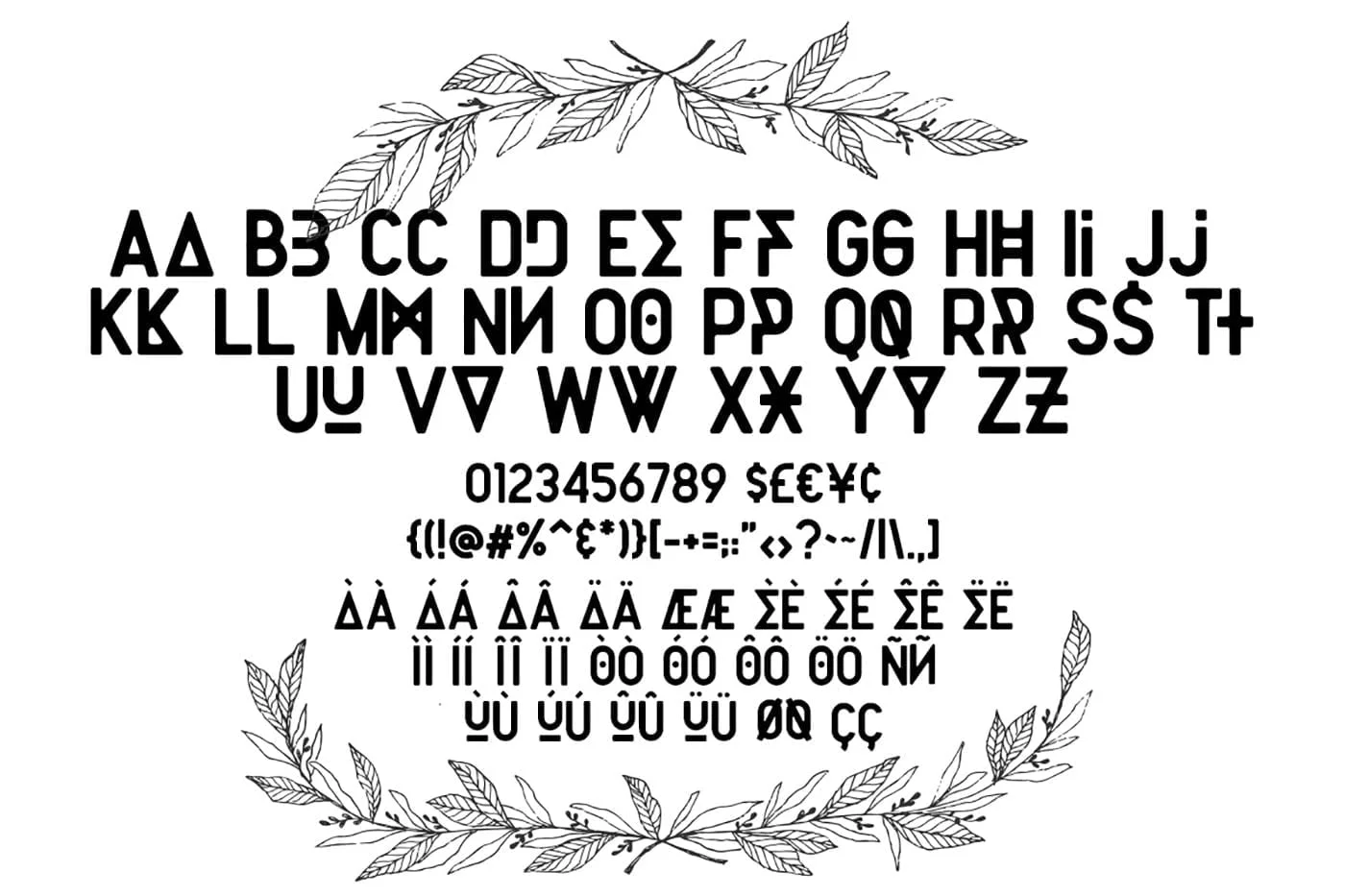
Rogertype is a vintage display font, with smooth edges to simulate vintage design. Perfect for many different projects: quotes, blog header, poster, wedding, branding, logo, fashion and apparel letter.
RogerType Vintage Font